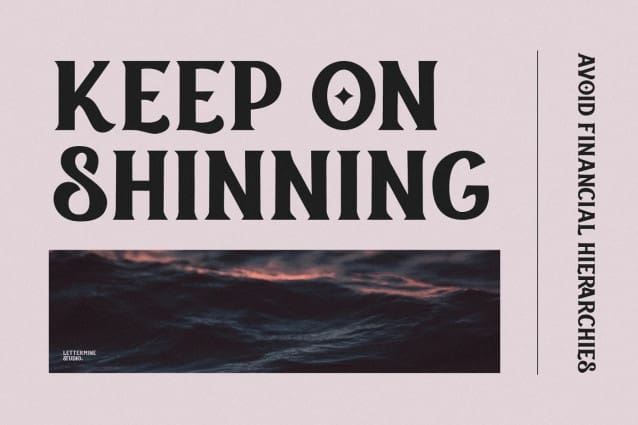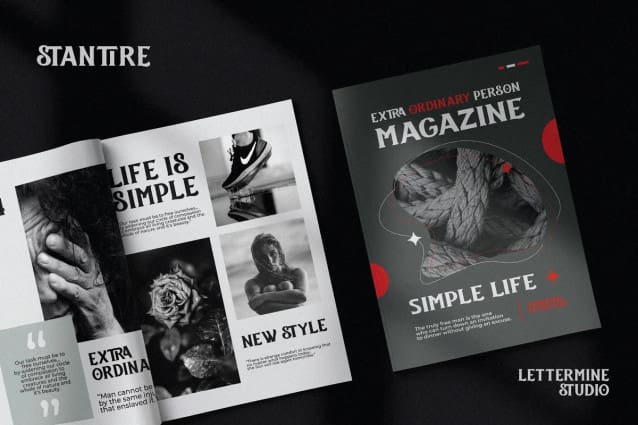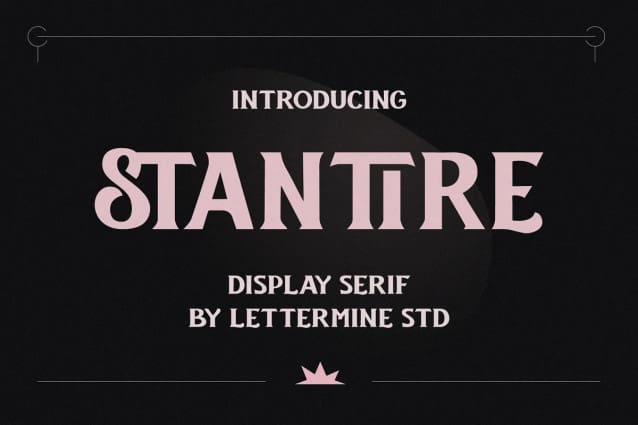
Stantire Font
Stantire Font – All Caps Display Font. A captivating and versatile Serif font designed to add a touch of elegance and modernity to any project. Whether you’re designing for the fashion industry, food industry, or various celebratory occasions like weddings, birthdays, or engagements, this font is your perfect companion. With its stylish and contemporary Allcaps Display Serif style, Stantire Font – All Caps Display Font effortlessly captures attention and elevates your designs to new heights.
Key Features:
Alternate Characters: Stantire Font – All Caps Display Font comes with a variety of alternate characters that allow you to create endless variations and combinations. Easily add a creative touch to your designs!
Ligatures: Presenting beautiful ligatures, Stantire – All Caps Display Font Font provides the possibility to combine characters and create a harmonious and flowing appearance.
Uppercase and Lowercase: With carefully crafted uppercase and lowercase letterforms, Stantire – All Caps Display Font offers optimal flexibility in your designs.
Symbols and Numerals: In addition to letter characters, Stantire – All Caps Display Font also provides elegant symbols and numerals, offering convenience in creating cohesive and comprehensive designs.